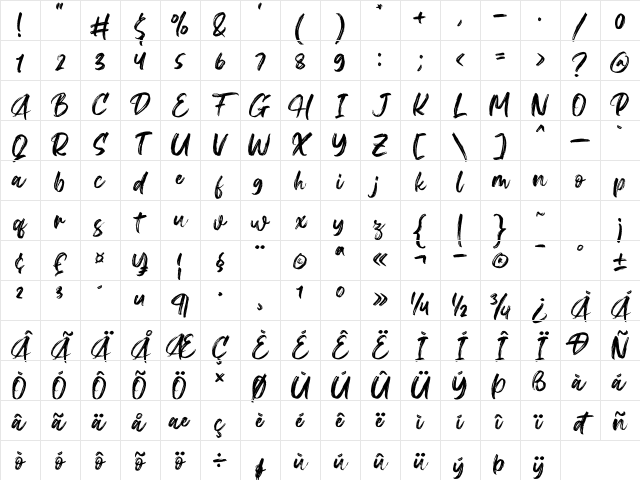
Gallendo Regular Free Font
Gallendo Regular
Foundry: Letterena Studios
Designer: Heru Utama Putra
Design Context for Gallendo
Gallendo is a composed and adaptable typeface that performs quietly and consistently across a wide range of design contexts.